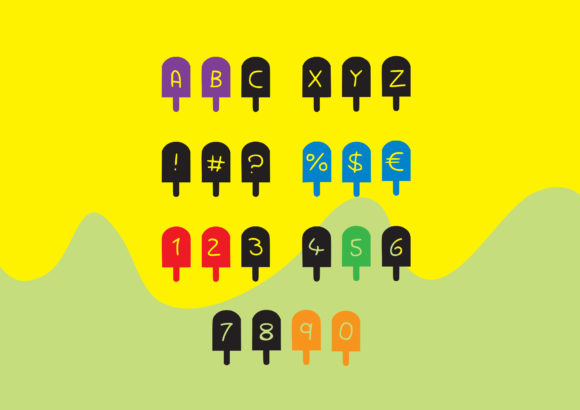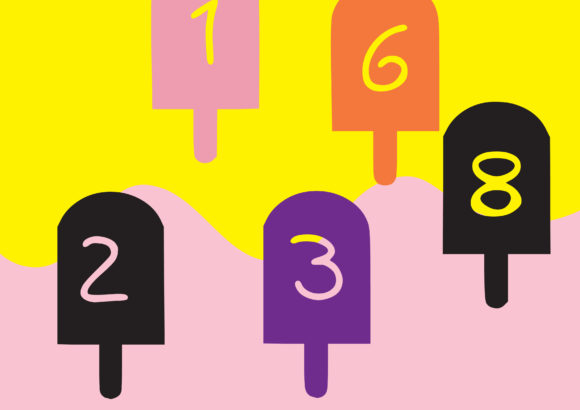
Introduction to Lolly Play Font
Lolly Play is a set of cute ice pops/lollies with a playful, child like font perfect to spell out anything to do with our favourite summer snack.
Handwritten with rounded sides make it a friendly and joyful font Great for schools, home teaching or a craft project.